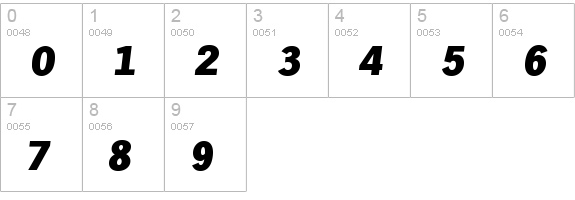
Hamburg-ExtraBoldIta Font Details
Hamburg-ExtraBoldIta is a stunning font that exudes confidence and boldness. With its strong, thick letterforms and stylish italic slant, this typeface commands attention and makes a powerful statement. It is the perfect choice for headlines, logos, and any design project that requires a touch of elegance with a hint of rebellion. What sets Hamburg-ExtraBoldIta apart is not just its striking aesthetics, but also the fact that it is freely available to download at FontsMarket.com. This means that designers, creatives, and typography enthusiasts can access this exceptional font without any cost or restrictions. Whether you're a professional designer looking to add a touch of uniqueness to your work or an amateur experimenting with typography, Hamburg-ExtraBoldIta is the perfect choice. With its versatility and timeless appeal, Hamburg-ExtraBoldIta can be used across a wide range of design applications. From print materials such as posters, brochures, and packaging, to digital platforms including websites, social media graphics, and mobile applications, this font delivers a visually captivating experience. The attention to detail in Hamburg-ExtraBoldIta is evident in its carefully crafted letterforms, ensuring legibility and readability even at smaller sizes. The bold strokes and subtle curves create a harmonious balance that catches the eye and leaves a lasting impression. Whether you're looking to make a statement or add a touch of sophistication, Hamburg-ExtraBoldIta is the perfect font choice. Its combination of strength, elegance, and accessibility makes it a valuable asset in any designer's toolkit. And with its availability for free download at FontsMarket.com, there's no reason not to add this exceptional font to your collection today.